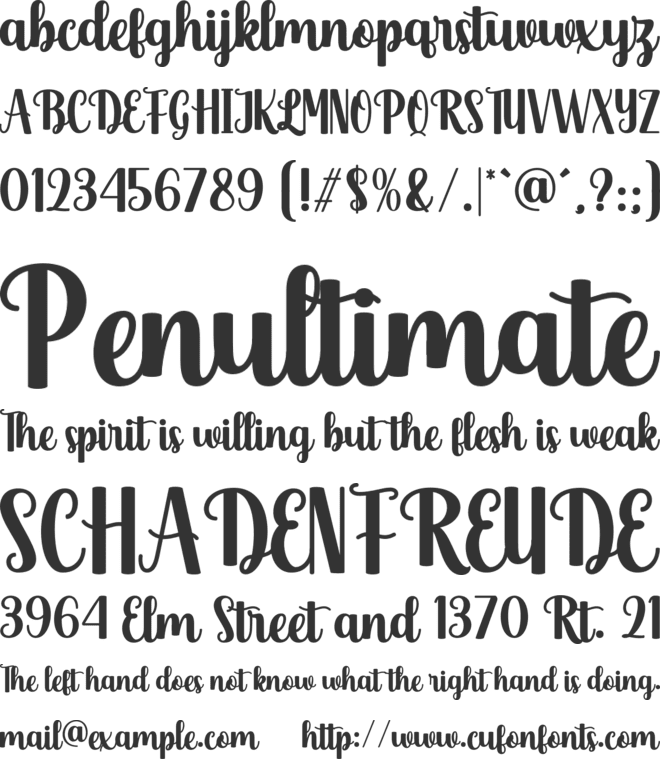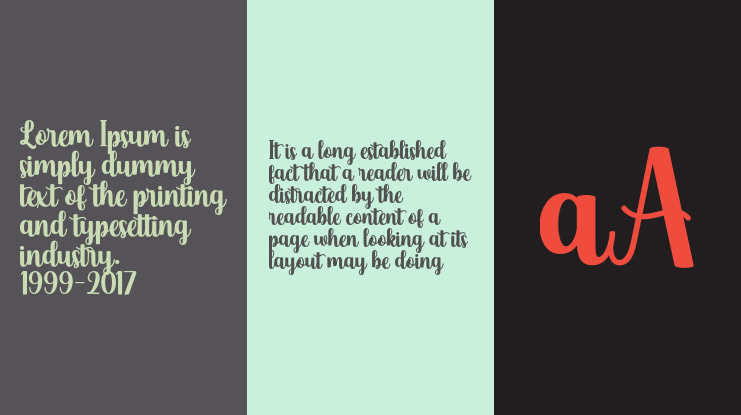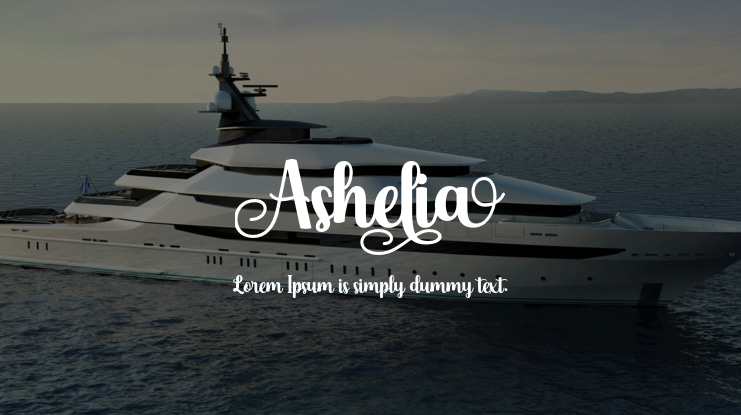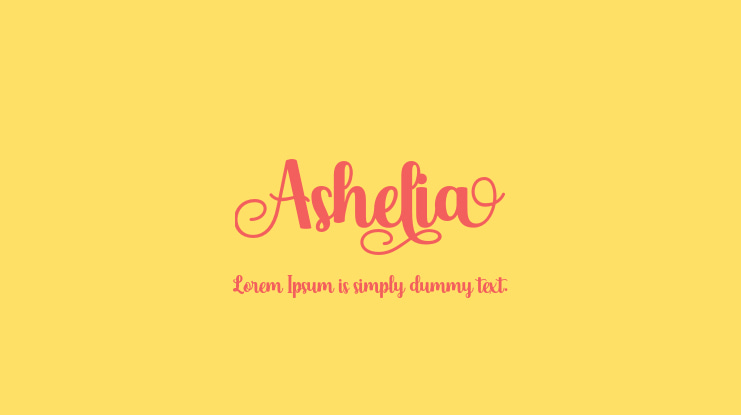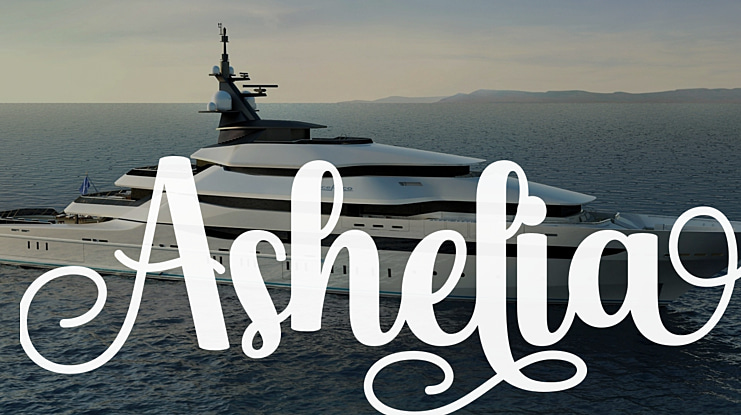
Ashelia Font
Ashelia is lovely and timeless handwritten font. Ashelia font has many alternative fonts. It is the best choice for creating eye-catching logos, branding, and quotes. So the design can be more attractive.